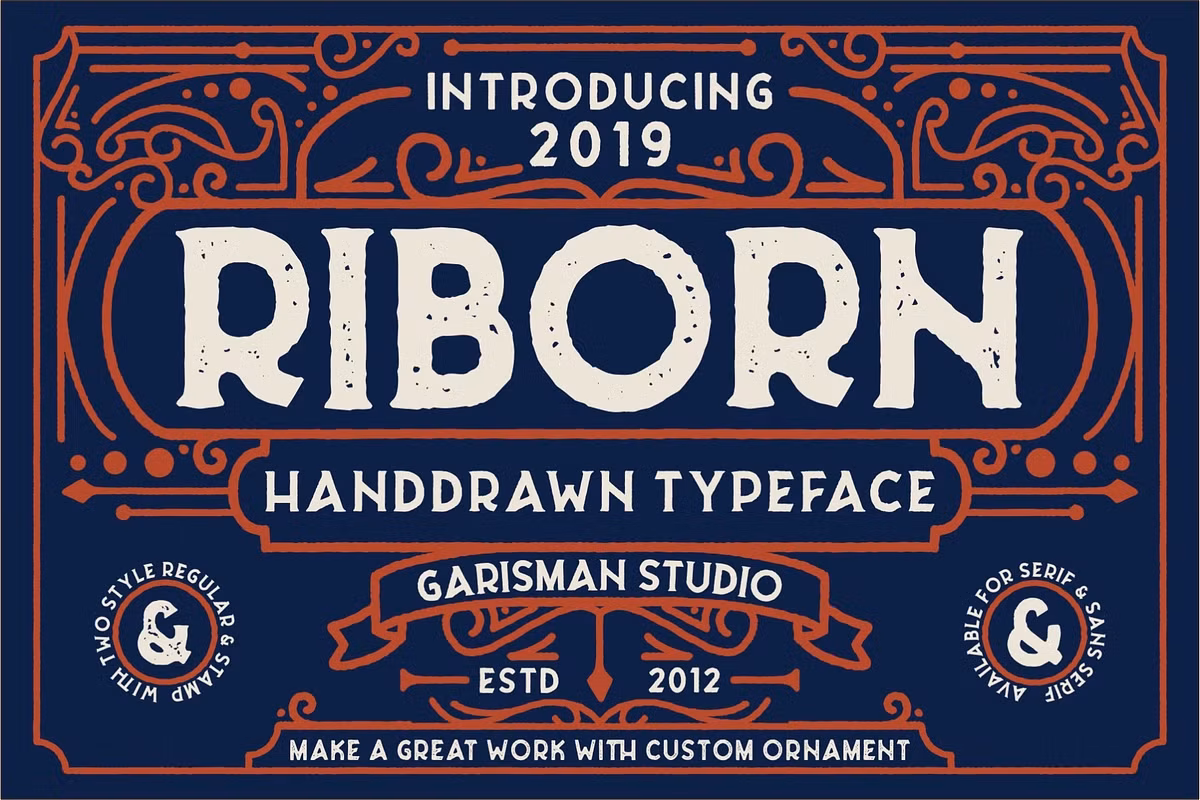
Riborn - Stamp Typeface Free Download is a bold and rugged typeface inspired by vintage stamp designs. Featuring textured, distressed edges, this font brings a raw, authentic look to your designs, making it perfect for creating logos, posters, branding, and packaging that need a rustic or industrial vibe.
The Riborn font’s stamp-inspired design gives your typography a tactile, hand-printed feel, adding character and strength to your project. Whether you’re working on a retro design, a craft-inspired brand, or an outdoor-themed project, this font adds a unique, timeless touch to your work.
Add boldness and texture to your designs with the distinctive Riborn Stamp Typeface!